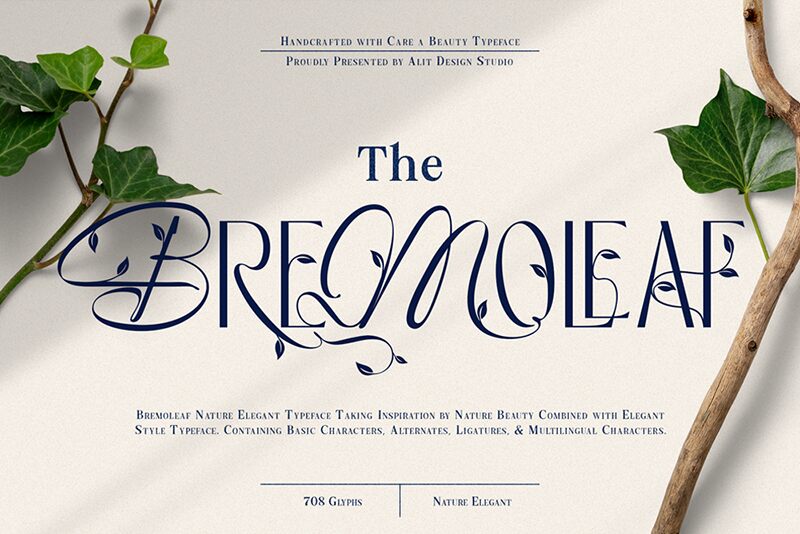
Bremoleaf font by Alit Design is a free decorative serif font inspired by breathtaking leaf pattern elements. It squarely fits the category of modern with a twist, where hints of nature coalesce with clear sharp characters for a touch of sophistication. Use it whenever you feel the need to grab attention whether the queued readers are aware or not. The legibility and ornamentation of the masterful typography make it useful economically for your business or any purpose your imagination could ever think of.
Bremoleaf is suitable for magazine cover designs, product packaging, advertisement banners and signages, headlines, poster designs, body, and paragraph text, and even page content on the web. Fully-equipped and supported access to basic but important typographic features such as multilingual support, symbols, and aesthetic alternates with this fancy font for your projects and design works.